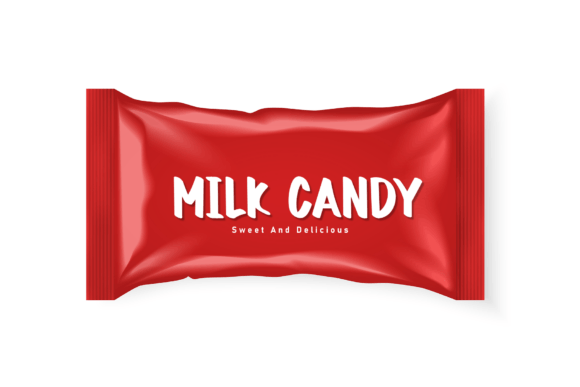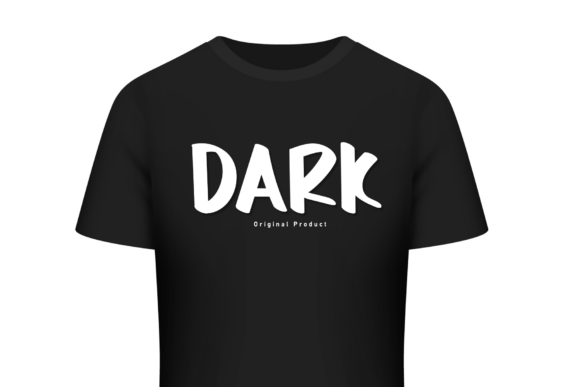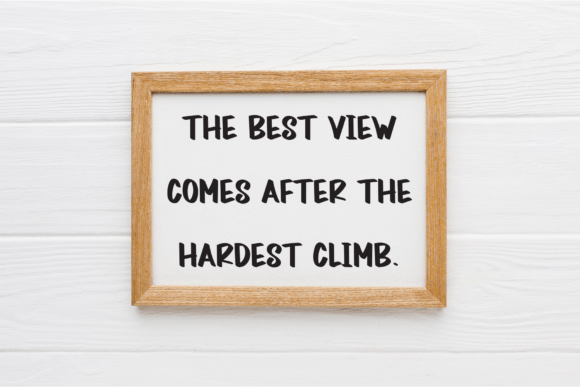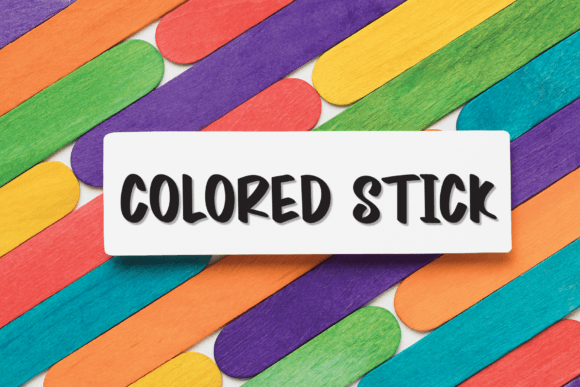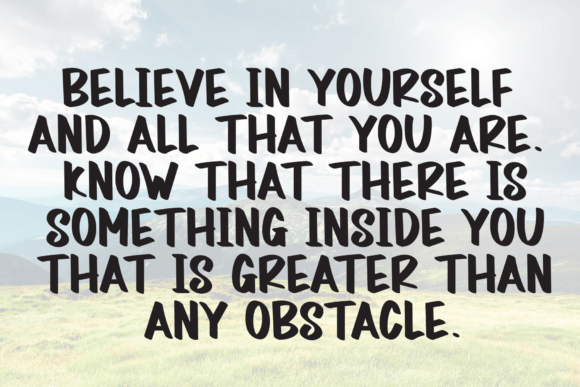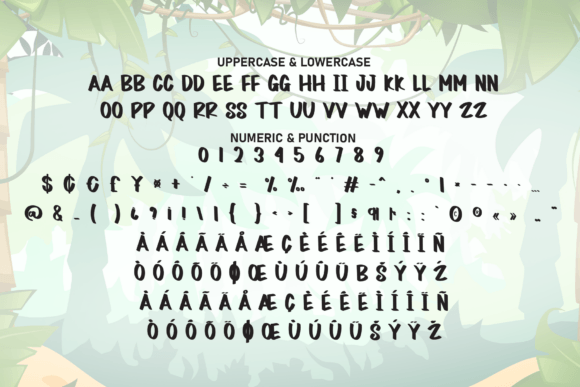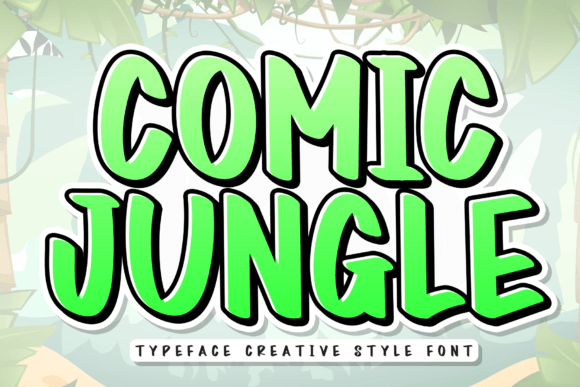
Introducing Comic Jungle Font: Unleash Your Creativity with this Bold and Playful Handwritten Display Font
Are you tired of using the same old fonts in your designs? Do you want to add a touch of fun and energy to your titles, posters, or crafts? Look no further than Comic Jungle Font, a bold, playful handwritten display font that’s perfect for designers and crafters who want to make a statement.
The Perfect Font for Attention-Grabbing Designs
Comic Jungle Font is designed to grab attention and make a lasting impression. Its fun, energetic style is perfect for creating eye-catching titles, posters, or any design that needs a lively and creative touch. Whether you’re a designer, crafter, or DIY enthusiast, this font is sure to inspire your next project.
What Makes Comic Jungle Font So Special?
So, what sets Comic Jungle Font apart from other fonts? Here are a few key features that make it a standout:
- Bold and Playful: Comic Jungle Font is a bold, playful handwritten display font that’s perfect for making a statement. Its thick strokes and casual, hand-drawn feel give it a unique and friendly vibe.
- Hand-Drawn Feel: The font’s hand-drawn feel gives it a personal and approachable touch that’s perfect for designs that need a human touch.
- Energetic and Fun: Comic Jungle Font is designed to be fun and energetic, making it perfect for designs that need to grab attention and make a lasting impression.
- Versatile: This font is versatile and can be used for a wide range of designs, from titles and posters to crafts and DIY projects.
Use Comic Jungle Font for Your Next Design Project
Comic Jungle Font is perfect for a wide range of design projects, including:
- Posters and Flyers: Use Comic Jungle Font to create eye-catching posters and flyers that grab attention and make a lasting impression.
- Titles and Headings: Add a touch of fun and energy to your titles and headings with Comic Jungle Font.
- Crafts and DIY Projects: Use Comic Jungle Font to add a personal touch to your crafts and DIY projects, such as scrapbooking, card making, and more.
- Social Media Graphics: Use Comic Jungle Font to create engaging social media graphics that stand out from the crowd.
Why Designers and Crafters Love Comic Jungle Font
Designers and crafters love Comic Jungle Font for its unique and playful style. Here are a few reasons why:
- Easy to Read: Despite its bold and playful style, Comic Jungle Font is easy to read, making it perfect for designs that need to communicate a message.
- Customizable: Comic Jungle Font is highly customizable, allowing you to adjust the font size, color, and style to fit your design needs.
- Unique Style: Comic Jungle Font has a unique style that’s sure to make your designs stand out from the crowd.
Get Creative with Comic Jungle Font
Ready to unleash your creativity with Comic Jungle Font? Here are a few tips to get you started:
- Experiment with Colors: Try pairing Comic Jungle Font with bright and bold colors to create a fun and energetic design.
- Mix and Match: Mix and match Comic Jungle Font with other fonts to create a unique and eye-catching design.
- Add Graphics: Add graphics and illustrations to your design to create a visually appealing and engaging design.
In conclusion, Comic Jungle Font is a bold, playful handwritten display font that’s perfect for designers and crafters who want to add a touch of fun and energy to their designs. Its unique style, hand-drawn feel, and versatility make it a standout font that’s sure to inspire your next design project.